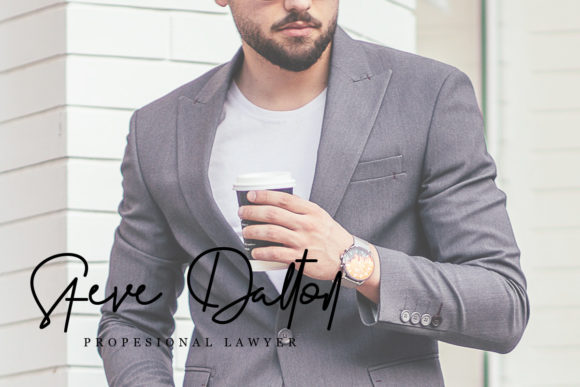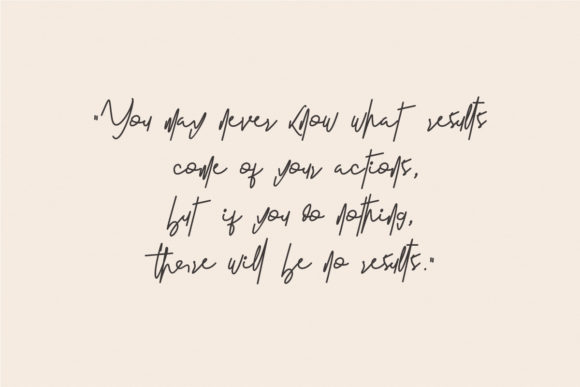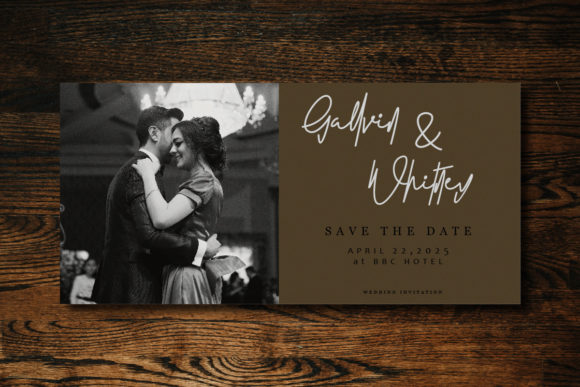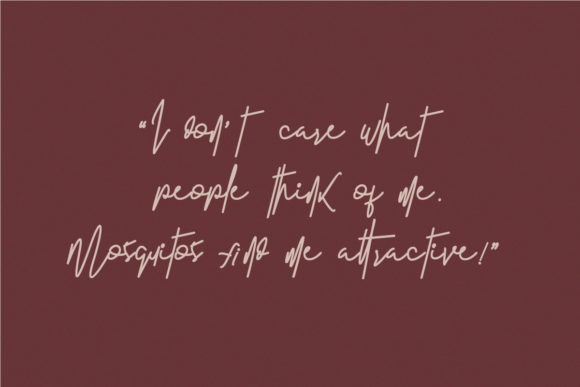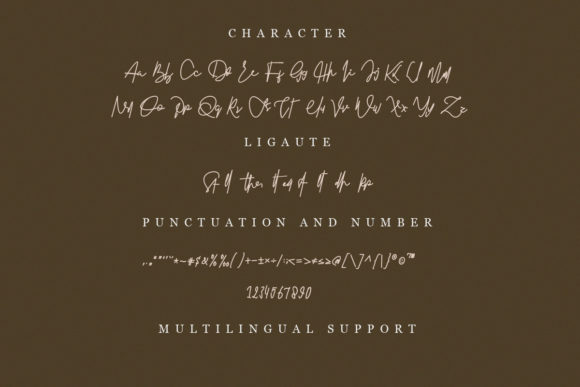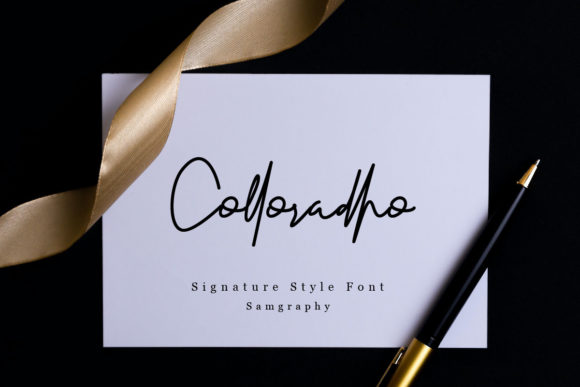
Introducing Colloradho Font: Elevate Your Designs with Elegance and Sophistication
In the world of typography, a font can make or break the aesthetic appeal of a design. For designers and crafters seeking to add a touch of elegance and sophistication to their projects, Colloradho Font is an exceptional choice. This stylish and incredibly elegant script font is perfect for a variety of applications, from wedding invitations and thank you cards to quotes, greeting cards, logos, business cards, and more.
The Beauty of Colloradho Font
Colloradho Font boasts a unique, handwritten style that exudes luxury and refinement. Its flowing lines and delicate curves make it an ideal choice for designs that require a personal touch. Whether you’re creating a romantic wedding invitation or a professional business card, Colloradho Font is sure to impress. Its versatility allows it to be used in a wide range of contexts, making it a valuable addition to any designer’s font collection.
Wedding planners, event coordinators, and designers will love Colloradho Font for its ability to add a touch of romance and whimsy to wedding invitations, save-the-date cards, and other event-related materials. The font’s elegant script style creates a sense of sophistication and glamour, setting the tone for a memorable and special occasion.
Ideal for Stationery and Greeting Cards
Colloradho Font is also perfect for creating beautiful stationery, greeting cards, and thank you cards. Its handwritten style gives these types of designs a personal and heartfelt feel, making them perfect for special occasions or everyday correspondence. Designers can use Colloradho Font to create custom stationery sets, birthday cards, Christmas cards, and more.
Enhance Your Brand with Colloradho Font
Business owners and marketers can also benefit from using Colloradho Font in their branding materials. The font’s elegant style makes it perfect for creating professional business cards, letterheads, and brochures. By incorporating Colloradho Font into their brand identity, businesses can convey a sense of sophistication and refinement, helping to establish trust and credibility with their target audience.
Key Features of Colloradho Font
- Elegant script style: Colloradho Font features a beautiful, handwritten script style that’s perfect for designs that require a personal touch.
- Versatile: Colloradho Font can be used in a wide range of contexts, from wedding invitations to business cards.
- Easy to read: Despite its elegant style, Colloradho Font is easy to read, making it perfect for body text and captions.
- Scalable: Colloradho Font is highly scalable, allowing designers to use it in a variety of sizes and applications.
Tips for Using Colloradho Font
To get the most out of Colloradho Font, here are a few tips to keep in mind:
- Pair with contrasting fonts: Colloradho Font pairs well with sans-serif fonts, such as Arial or Helvetica, to create a beautiful contrast.
- Use for headlines and titles: Colloradho Font is perfect for headlines and titles, where its elegant style can shine.
- Experiment with colors: Colloradho Font looks great in a variety of colors, from metallic gold and silver to rich jewel tones.
In conclusion, Colloradho Font is a stylish and elegant script font that’s perfect for designers and crafters seeking to add a touch of sophistication to their projects. Its versatility, readability, and scalability make it an excellent choice for a wide range of applications, from wedding invitations and stationery to branding and advertising materials. With Colloradho Font, designers can create beautiful, eye-catching designs that are sure to impress.